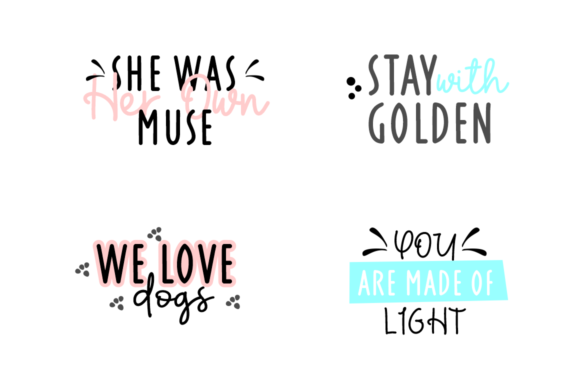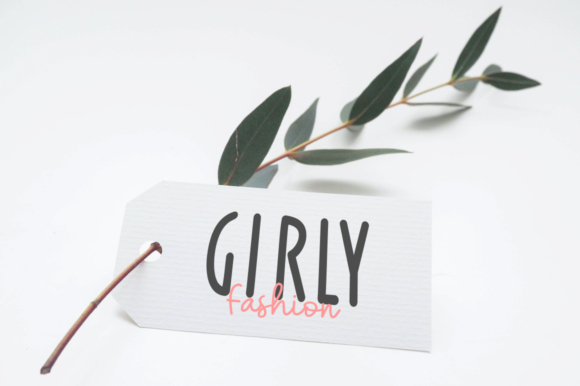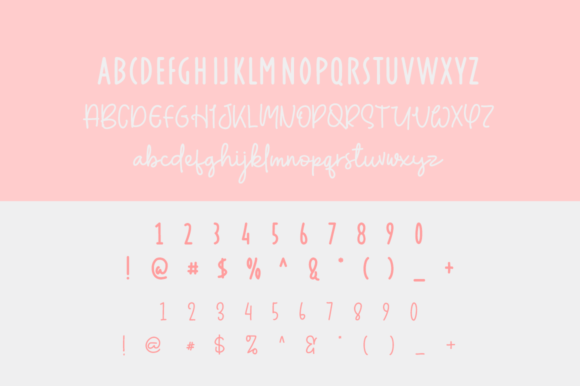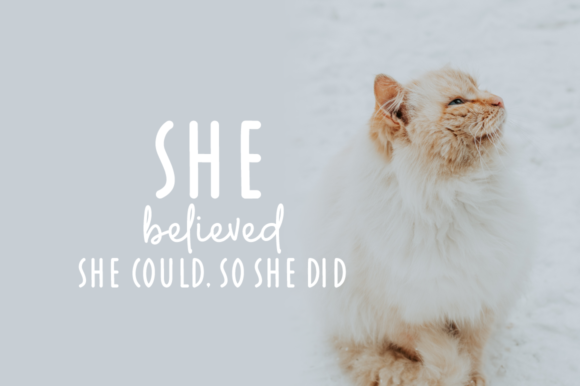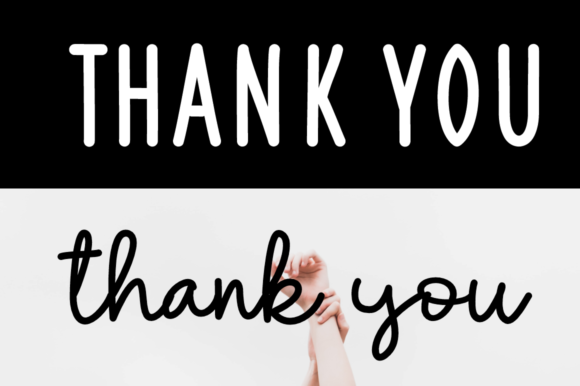
Introduction to Masta Font
As a designer, you know the struggle of finding the perfect font to bring your creative project to life. It’s that moment when you’re brainstorming ideas, sipping coffee, and scrolling through your design resource library that you stumble upon the perfect match. For me, it was a quiet afternoon spent experimenting with a free download of Masta Font, and suddenly, my design vision came into focus.
With its soothing script and elegant display styles, Masta Font has the power to elevate any creation, making it a valuable addition to your design arsenal. Whether you’re working on a high-quality brochure, a social media graphic, or a website, Masta Font is sure to bring a touch of sophistication and class to your project.
Key Features of Masta Font
- High-quality design resource suitable for creative projects, available for free download
- Features a transparent background, allowing for seamless integration into various design elements
- Font size: scalable, with a recommended minimum size of 12pt for optimal readability
- Resolution: high-resolution design, suitable for printing and digital use
- Unique characteristics include its modern and edgy style, making it perfect for bold and creative projects
- Easy to use and customize, with a wide range of design applications supported, including graphic design, web design, and more
Honest Review: Masta Font
I recently stumbled upon the Masta Font while searching for a free download to enhance my design projects. I was initially drawn to its unique style, which could add a touch of personality to my creative project.
- ✨ The font is indeed high quality and works well for headings or titles, especially in designs that require a bold and eye-catching look.
- ✨ The transparent background makes it easy to integrate into different design elements, such as logos or icons.
- ⚠️ The font may not be suitable for body text, as it can be quite difficult to read in smaller sizes.
- ⚠️ The font is not as versatile as some other popular fonts, which may limit its use in certain design scenarios.
Overall, I would say that the Masta Font is a solid addition to any design resource library. While it may not be perfect for every project, its unique style and high quality make it a great choice for designers looking to add some personality to their work.
Tips for Getting the Most Out of Masta Font
Experiment with different font sizes and styles to find the perfect look for your design. Use the Masta Font in combination with other design elements, such as images and graphics, to create a visually appealing design. Don’t forget to save your design as a high-quality file to ensure that it looks great on any device.
Common Use Cases for Masta Font
The Masta Font is a versatile design resource that can be used in a variety of creative projects, including logos, brochures, business cards, and social media graphics. It’s perfect for anyone looking for a high-quality, free download font to add